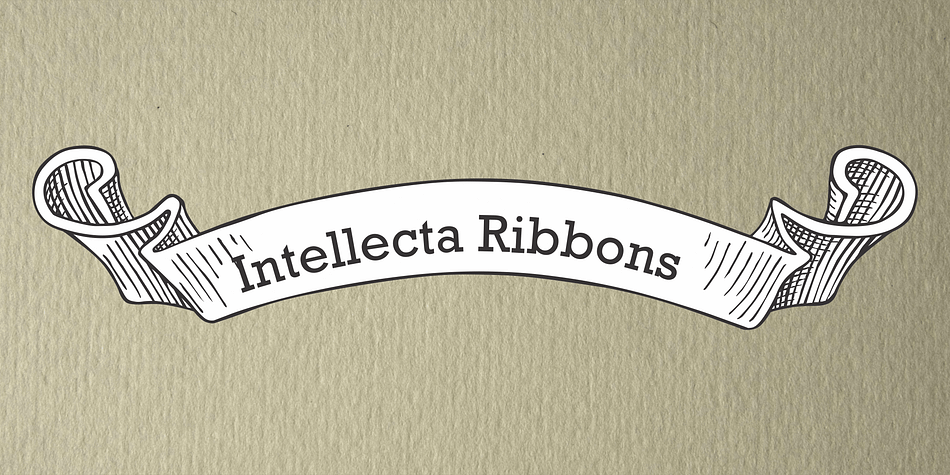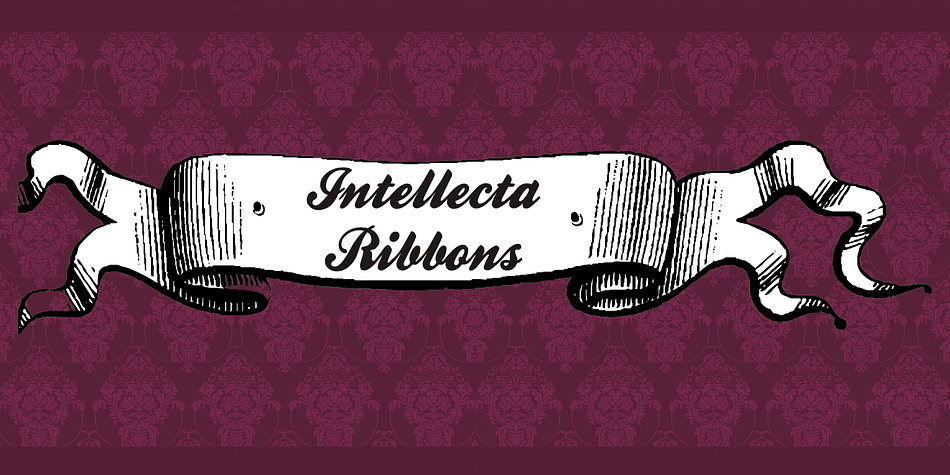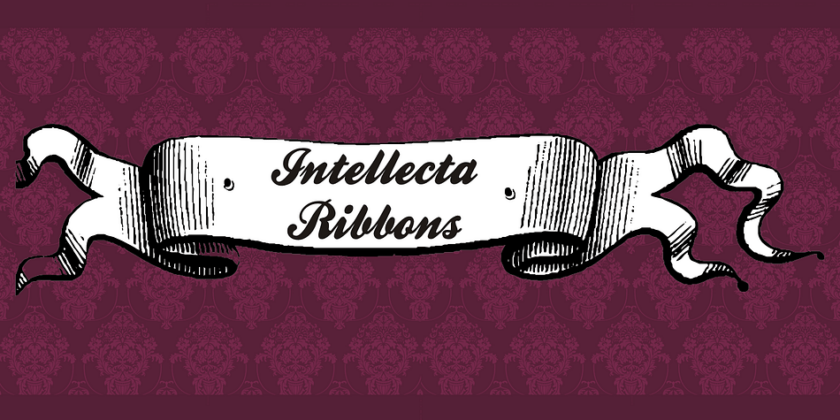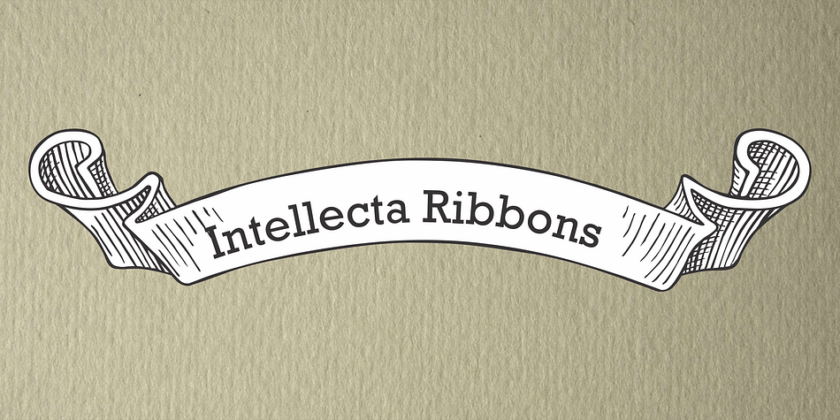
Intellecta Ribbons
About Intellecta Ribbons
Intellecta Ribbons is an elegant set of ribbons ready for many applications. With this set you can make tags, shopping sale designs, diverse invitations, discount seals, banners, posters or anything you want.